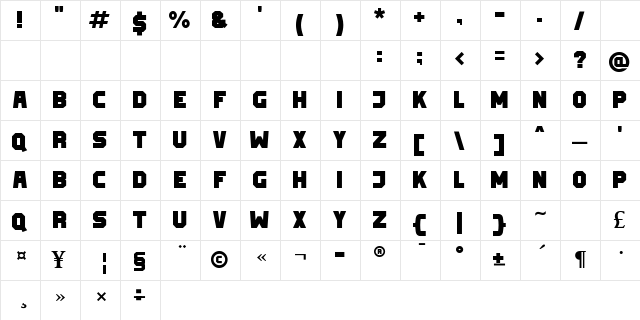
Inlanders Bold
| Designer | Susilo Hidayat |
Design Context for Inlanders Typeface
Inlanders is a composed and adaptable typeface that performs quietly and consistently across a wide range of design contexts. Its bold stroke weight gives it real presence on the page.